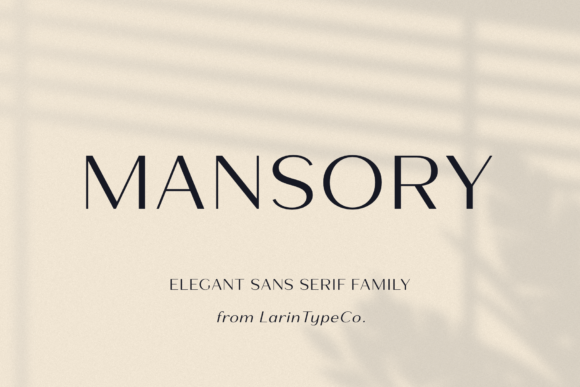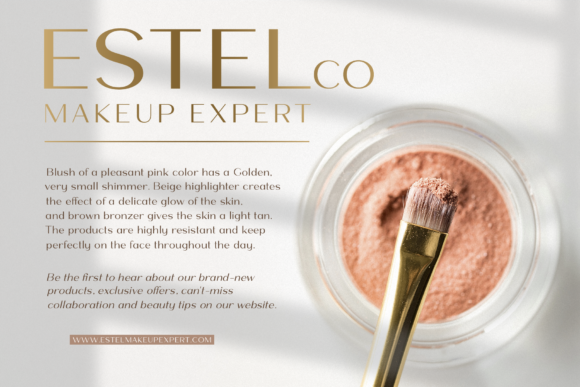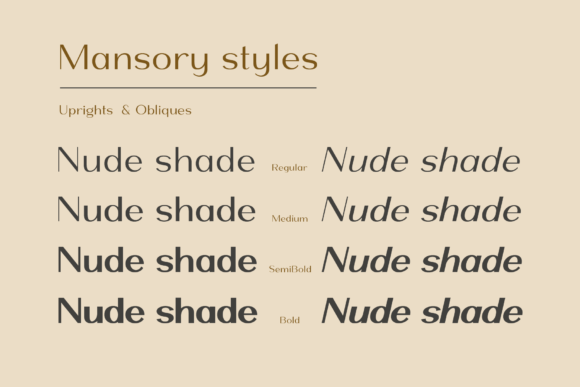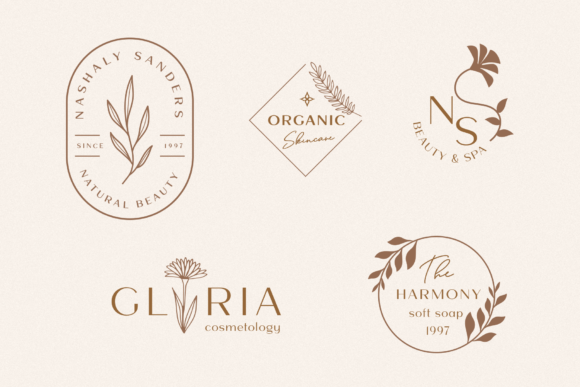
Mansory Font: An Elegant Sans Serif for Modern Logo Design & Branding
About the Mansory Font
The Mansory Font offers a perfect balance of form and function for your design needs. Mansory is a truly gorgeous and light sans serif font that will work in a wide range of designs. It’s incredibly well balanced and will turn any design idea into an aesthetic masterpiece.
Mansory’s light weight and clean lines make it ideal for headlines, logos, and short-form text in branding materials and posters. Its elegance shines in packaging design, particularly for luxury or minimalist products. However, its delicate nature makes it less suitable for body text or UI elements where readability over long stretches is crucial.
The font possesses a sophisticated yet friendly personality. To enhance this, pair Mansory with a complementary serif like Lora for a touch of classicism, or a geometric sans-serif like Montserrat for a modern, balanced feel. For a more playful contrast, consider pairing it with a script font like Great Vibes, but use it sparingly.
Ultimately, Mansory’s strength lies in its ability to elevate a design with understated grace. It’s a perfect choice for brands projecting sophistication, quality, and a sense of calm confidence.